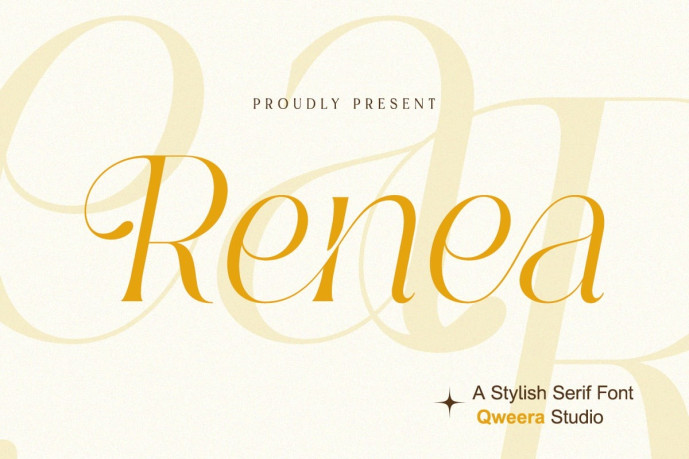
Renea – Modern Serif Font
Renea – Modern Serif Font that blends sophistication and simplicity. With soft curves and high contrast details, it brings elegance to logos, fashion brands, editorials, and product packaging. Each letter is designed for balance and grace, creating a timeless typographic experience.
Features:
• Uppercase & Lowercase Letters
• Alternates & Ligatures
• Multilingual Support
Perfect For: Luxury branding, packaging design, fashion editorials, logo design, and minimalist campaigns.